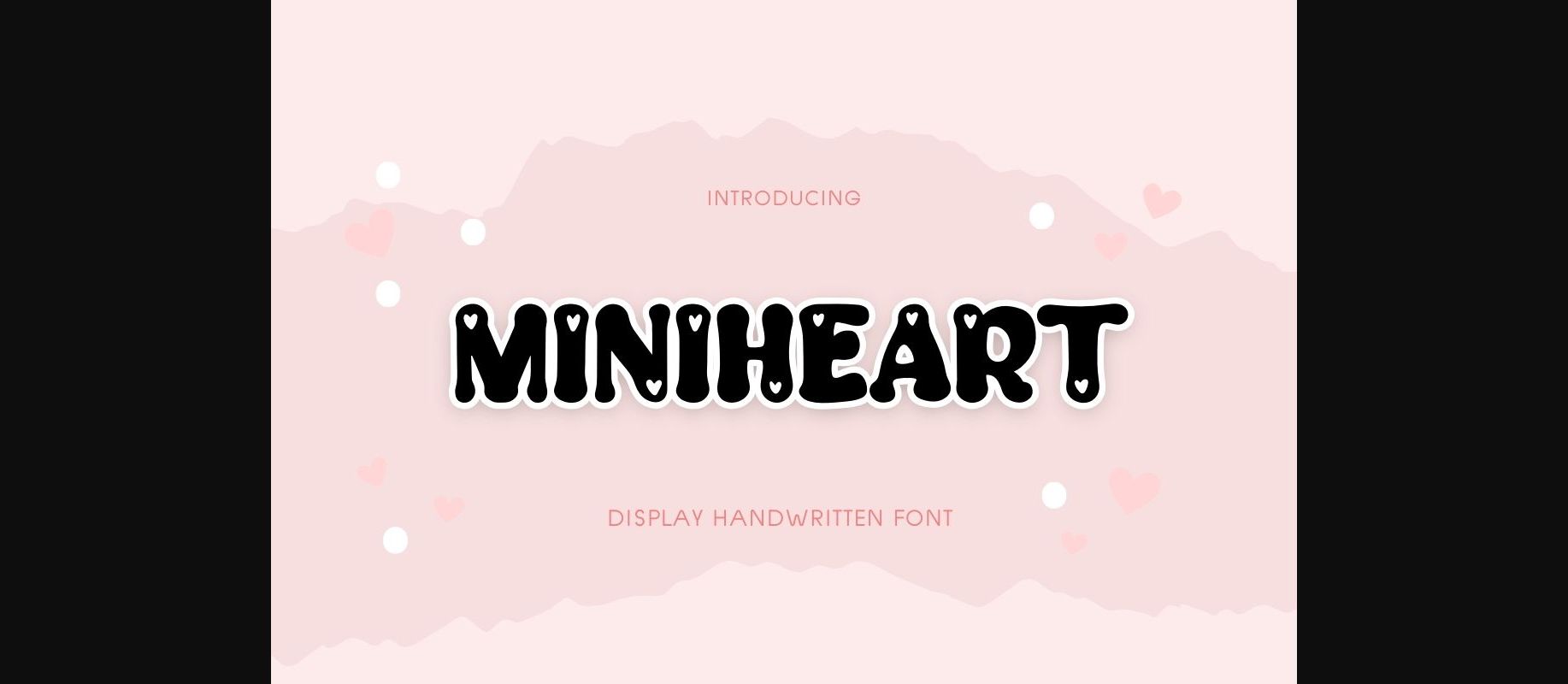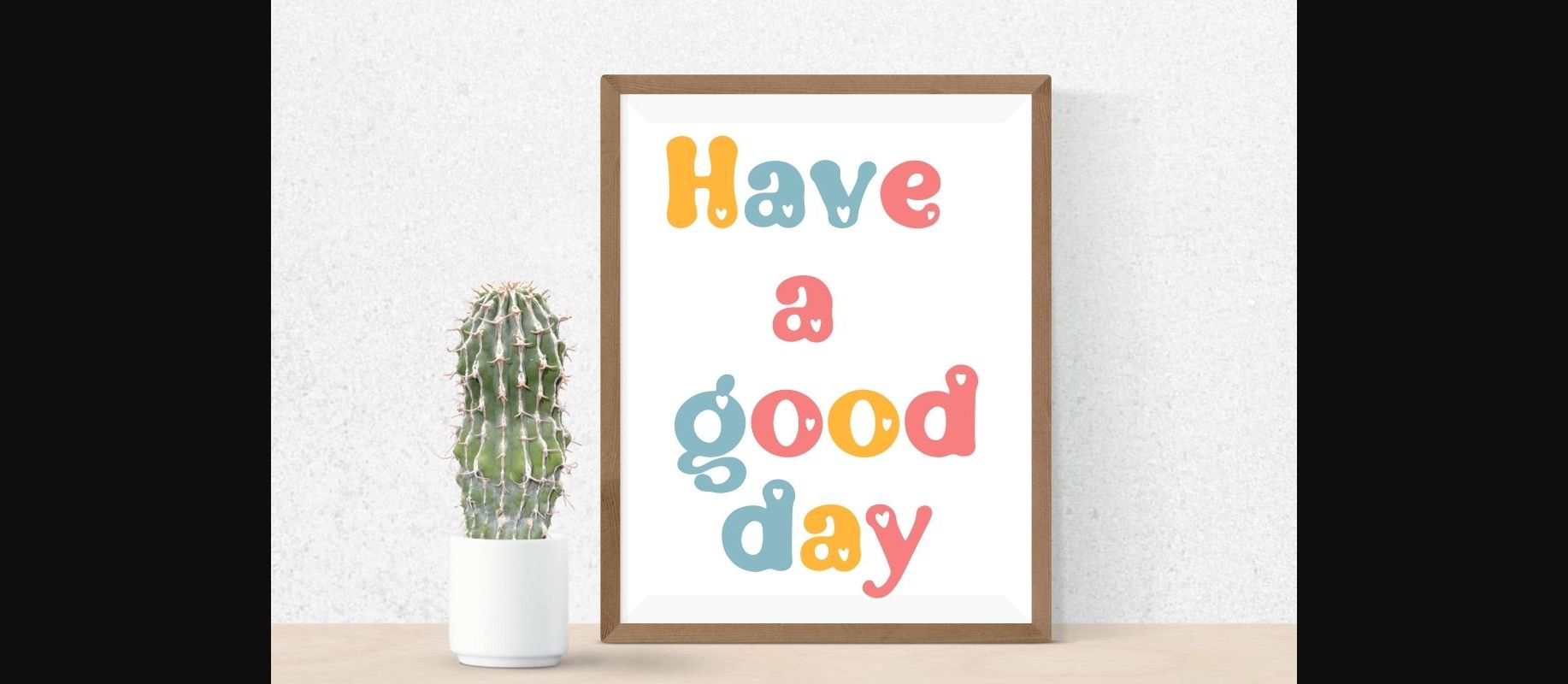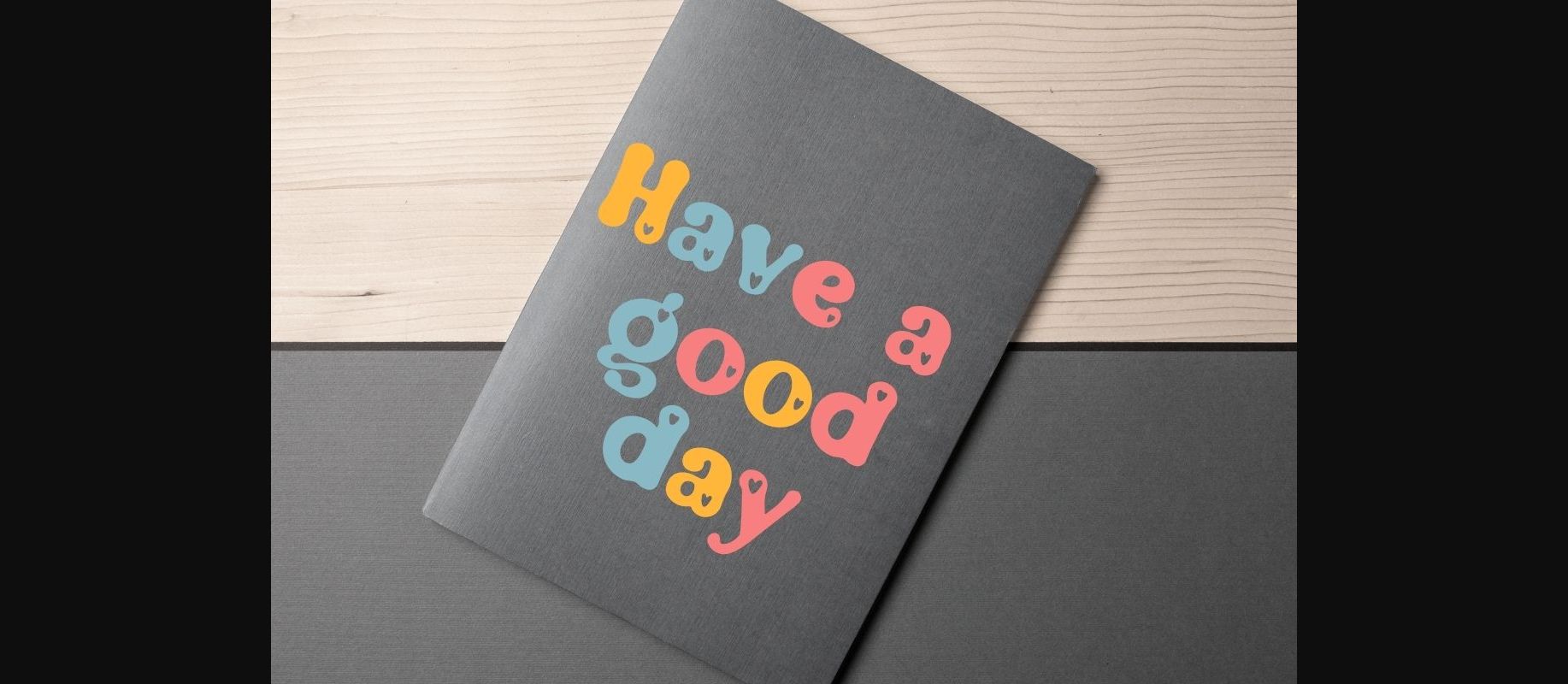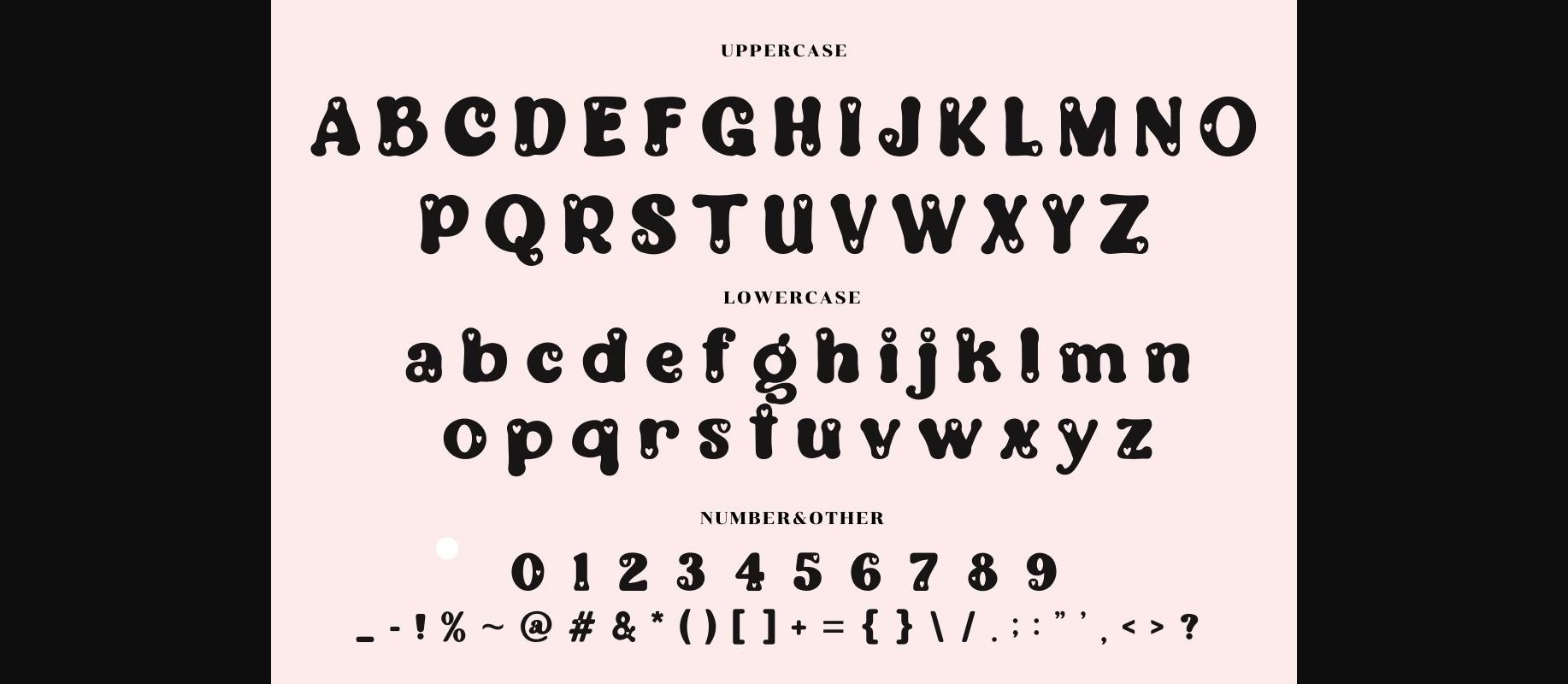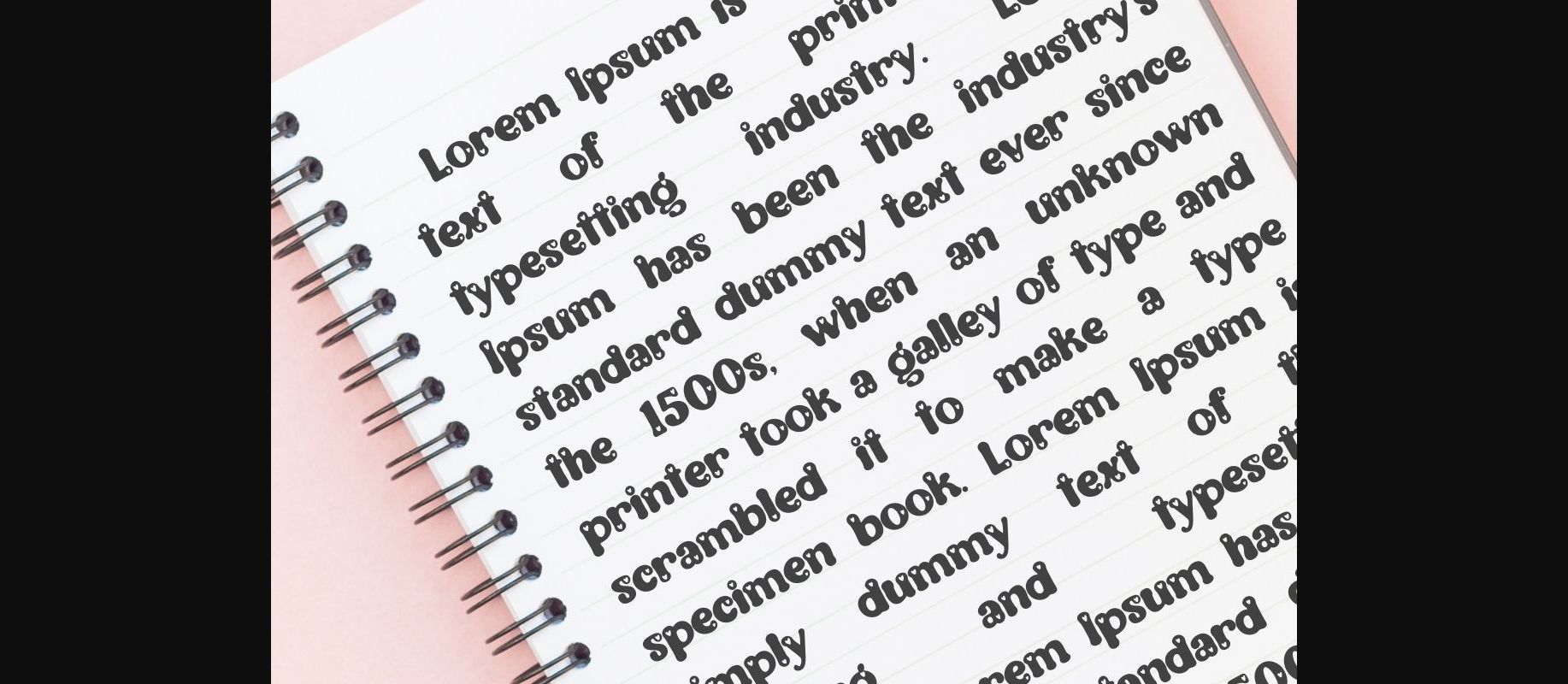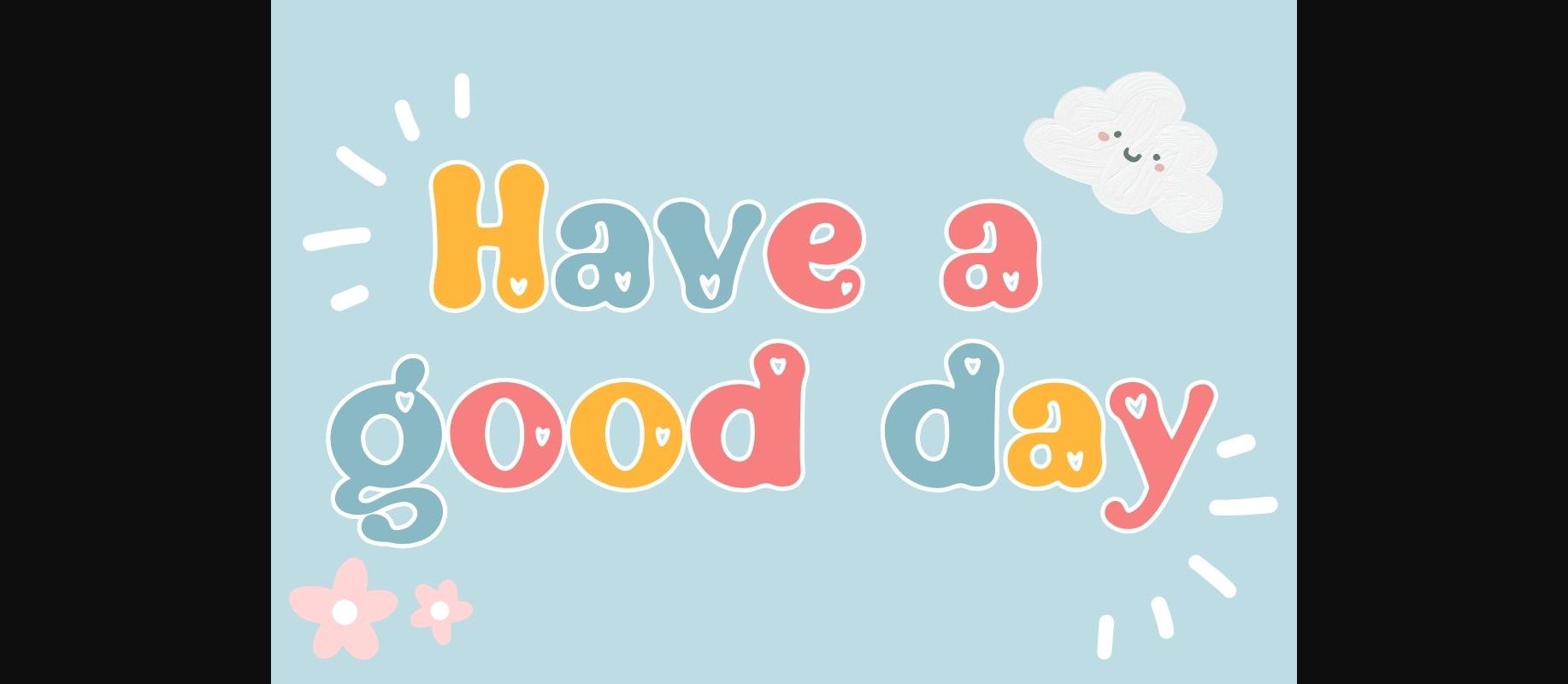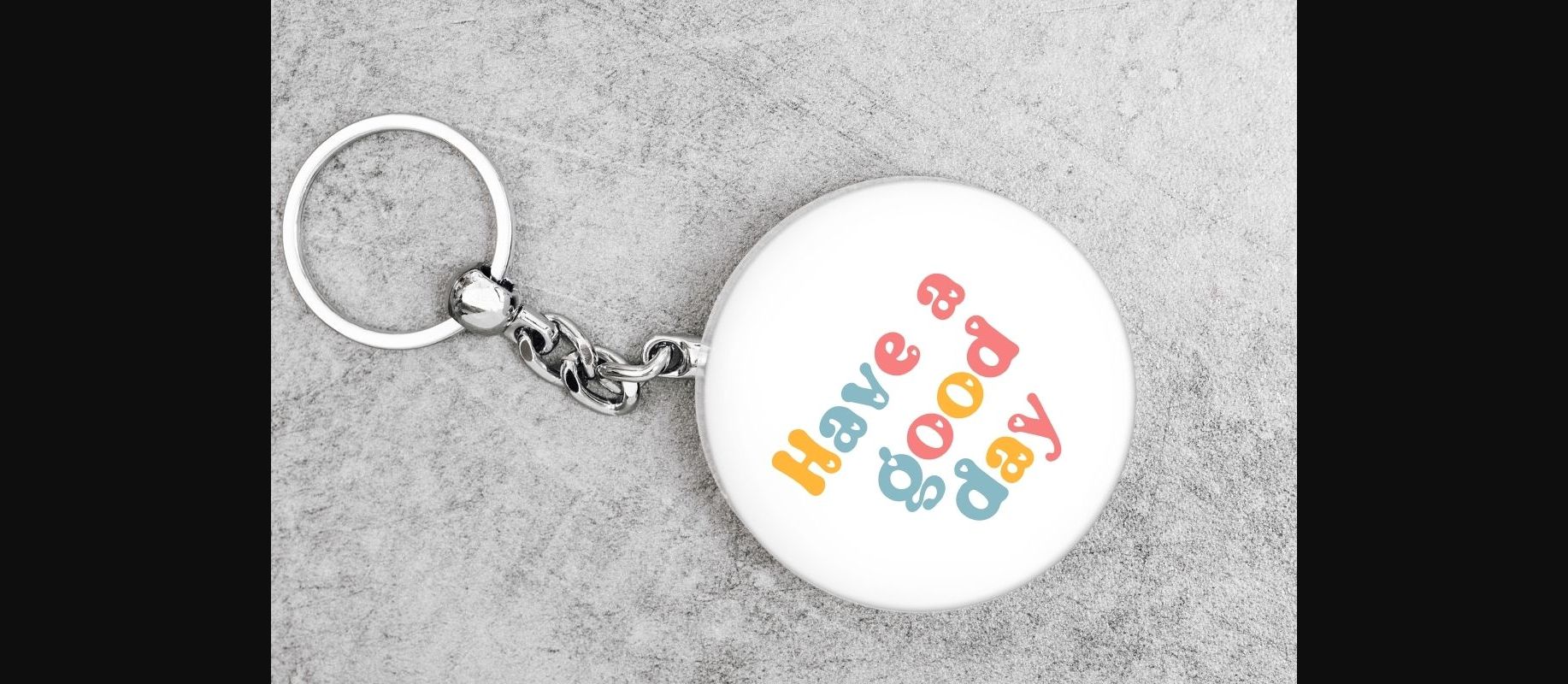
About Mini Heart Font
Mini Heart is a playful font with cute little hearts.
This font is specially designed for the funny theme, making it perfect for various designs that require a cute touch, including heartbeat-themed designs, kids’ designs, birthday invitations, playful designs, t-shirt designs, crafting, stickers, sublimation, and more.